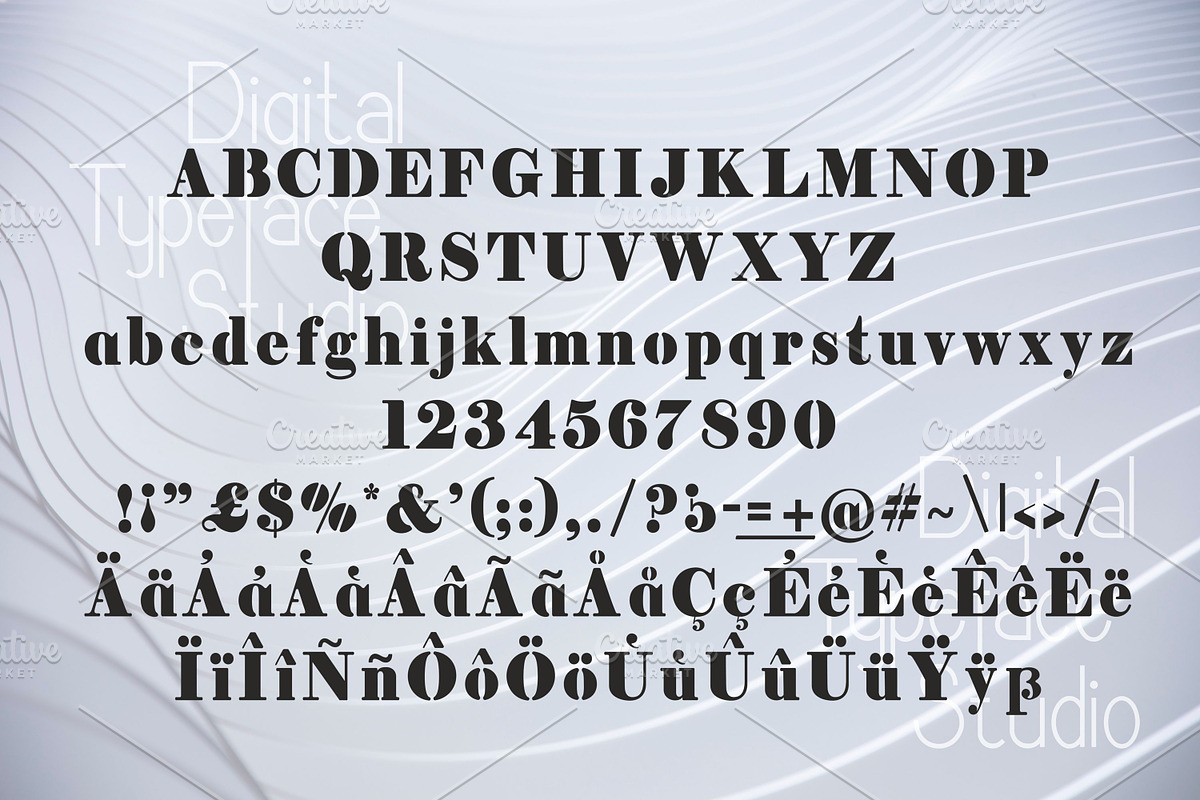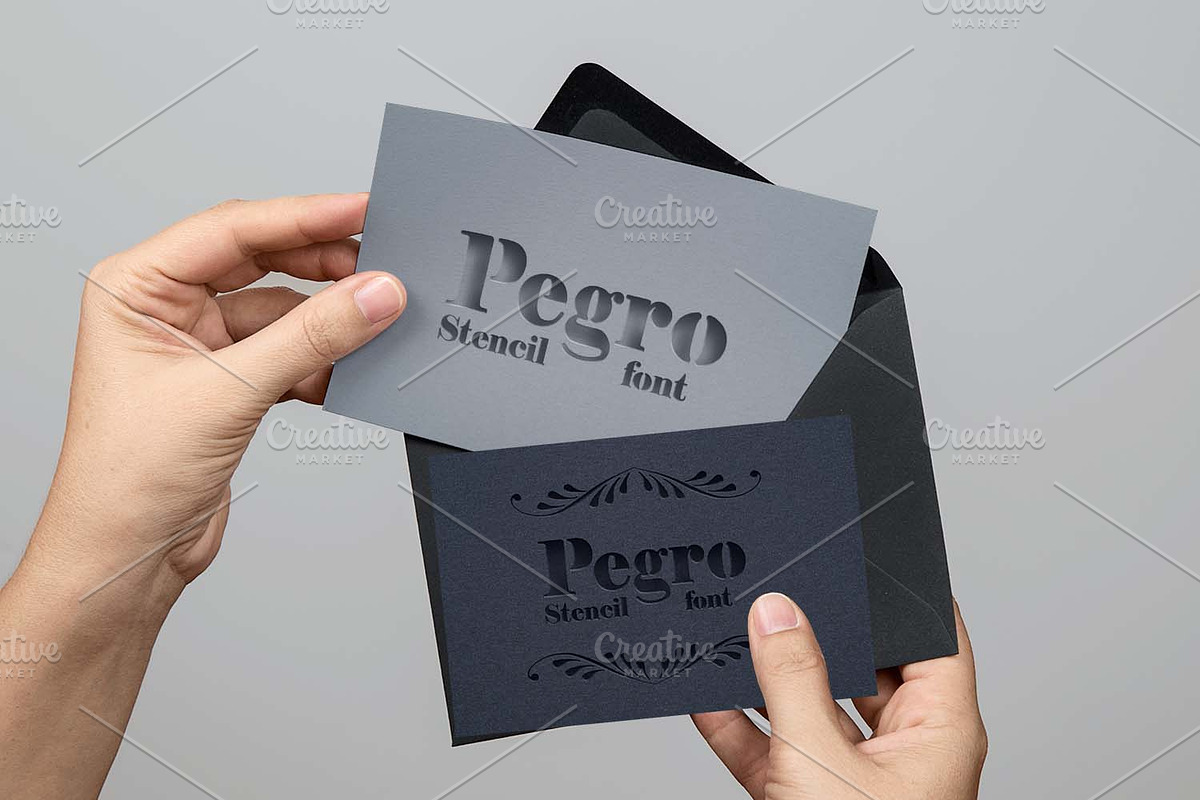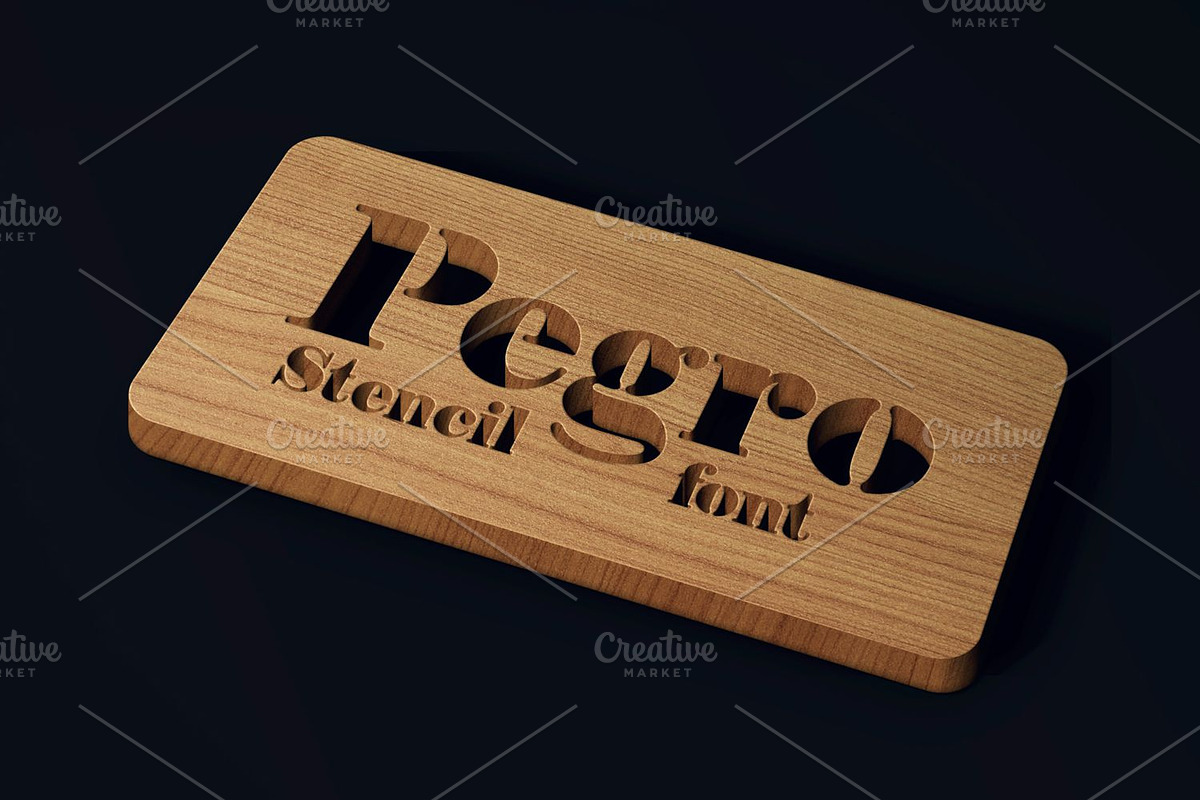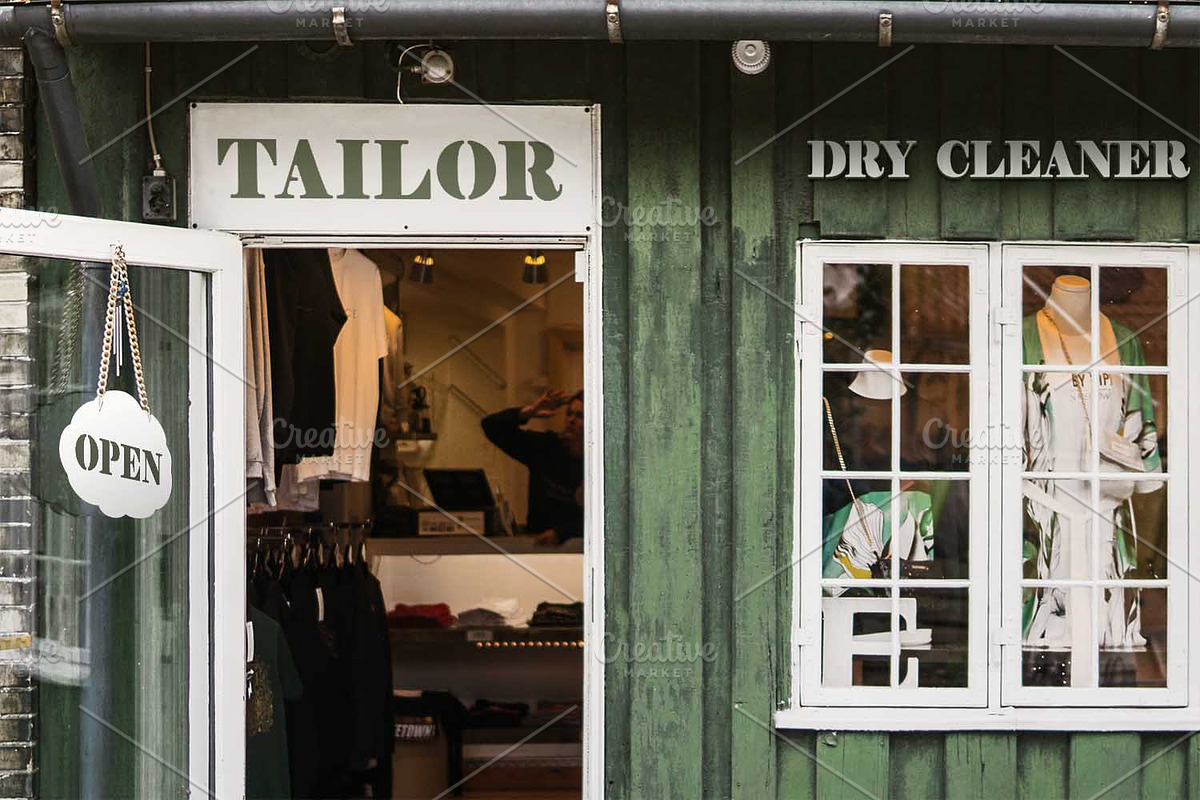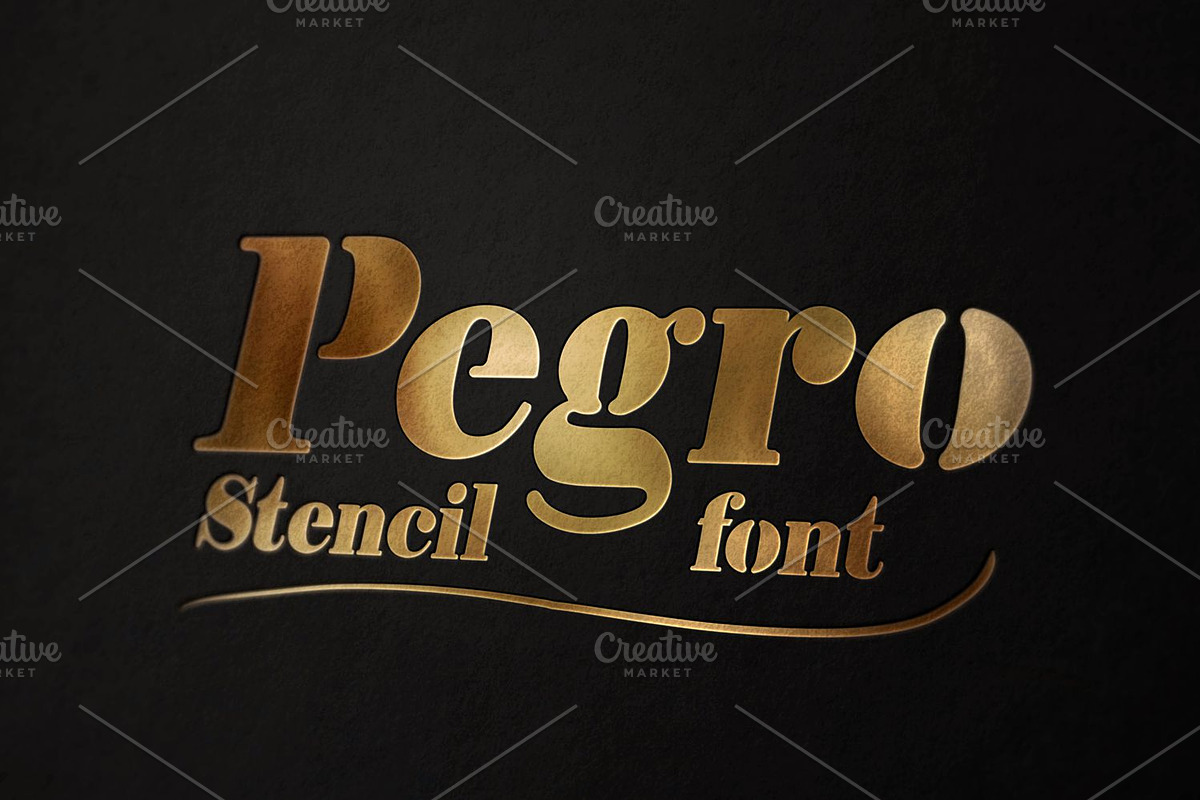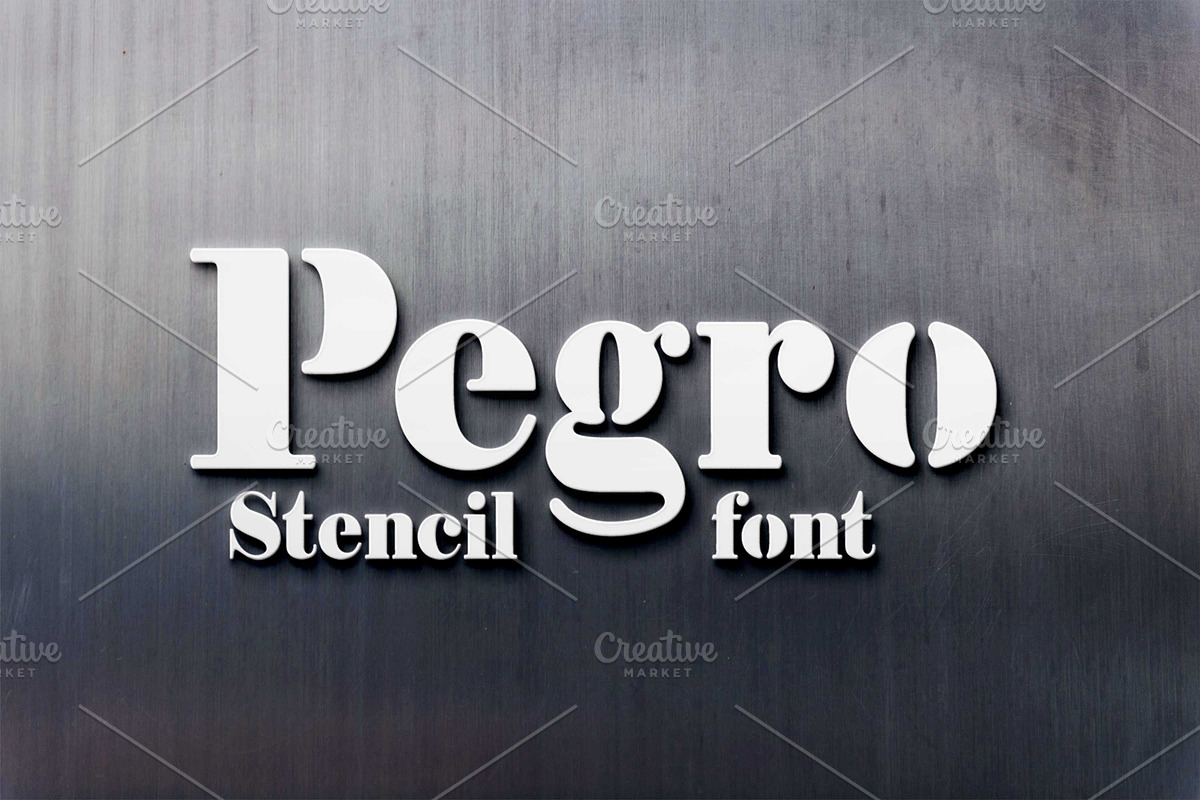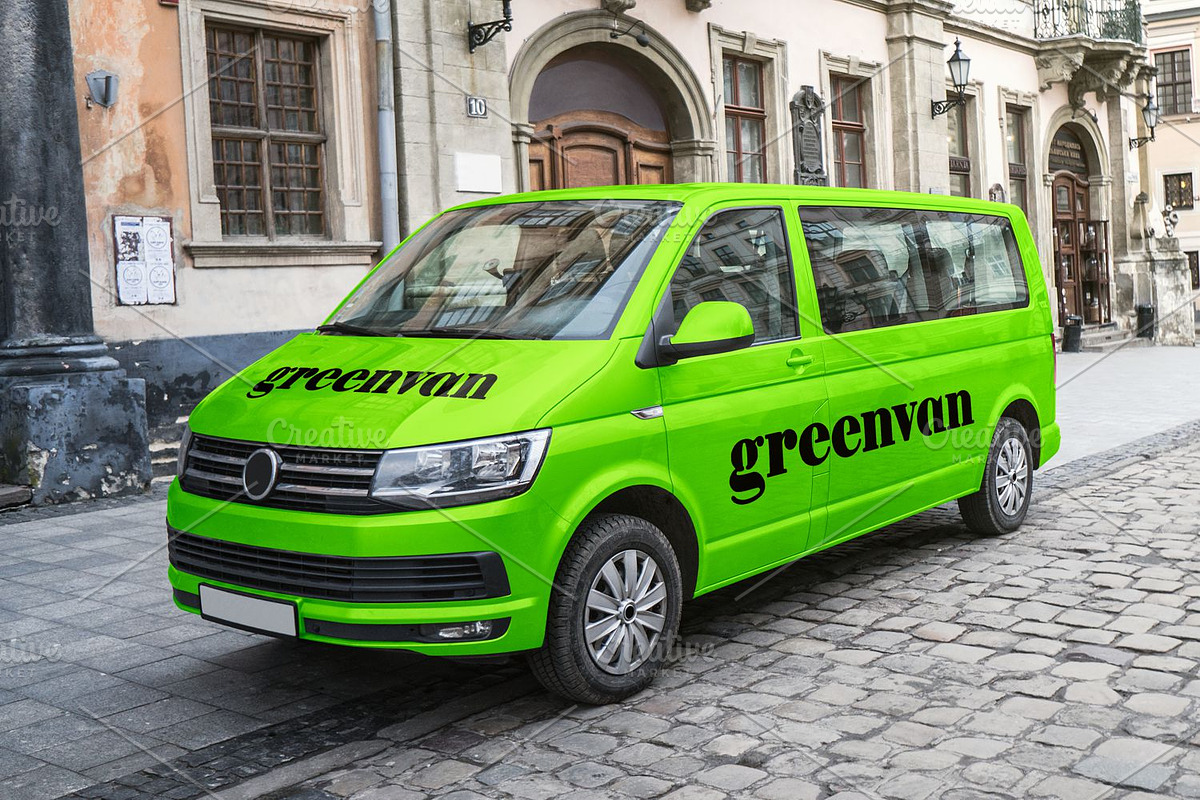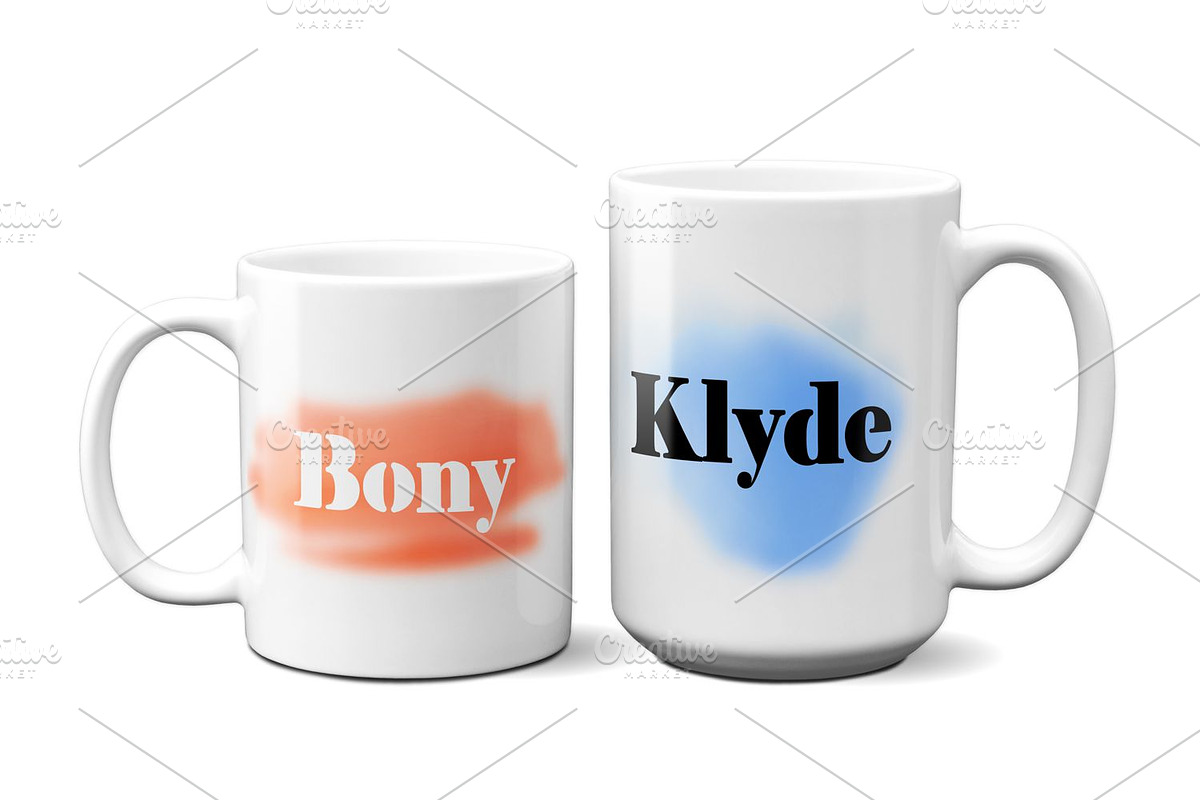
Pegro Stencil
Pegro Stencil is a strong and bold stencil serif font. Legible and stylish display font, and perfect for headlines, covers, logos and branding and other creative designs.
Pegro Stencil by Digital Typeface Studio fits naturally into Branding, posters, packaging, typography.